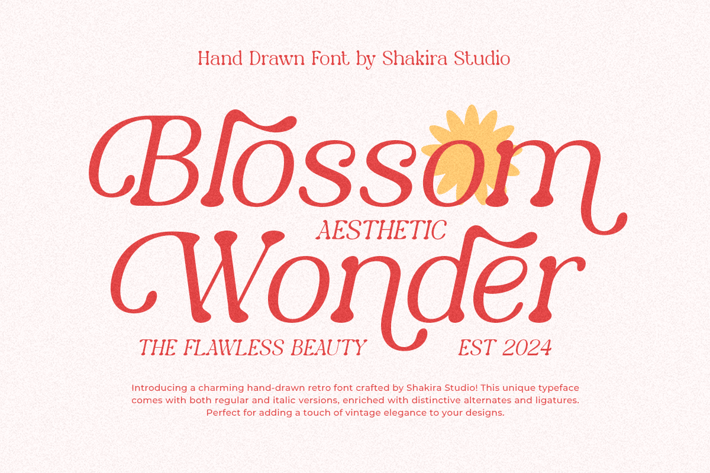
Blossom Wonder - A HandDrawn Font
Introducing Blossom Wonder - Handdrawn Serif Font
Discover the elegance of Blossom Wonder, a handdrawn serif font designed with unique alternates and ligatures. Perfect for branding, logo design, and creative projects, this font blends classic charm with a modern twist. Enhance your designs with the stylish and artistic flair of Blossom Wonder today!
- Regular & Italic
- Opentype features ( ligature, alternate )